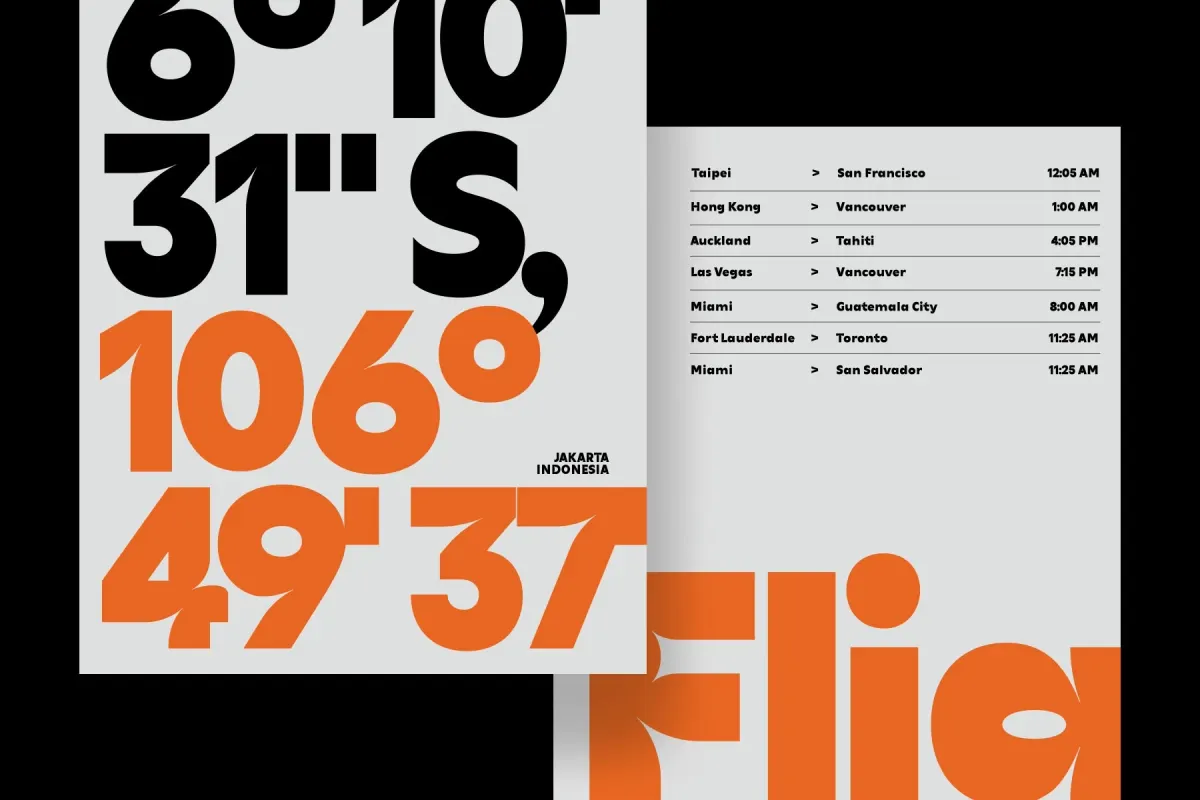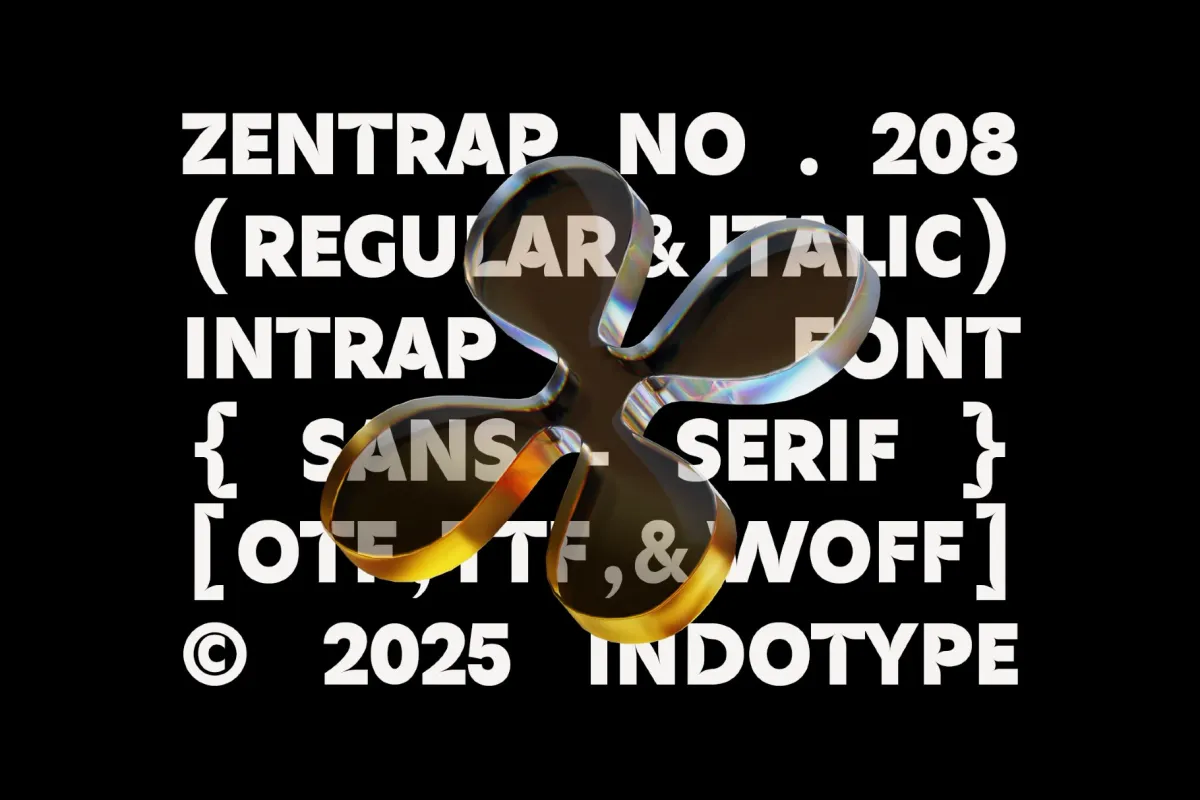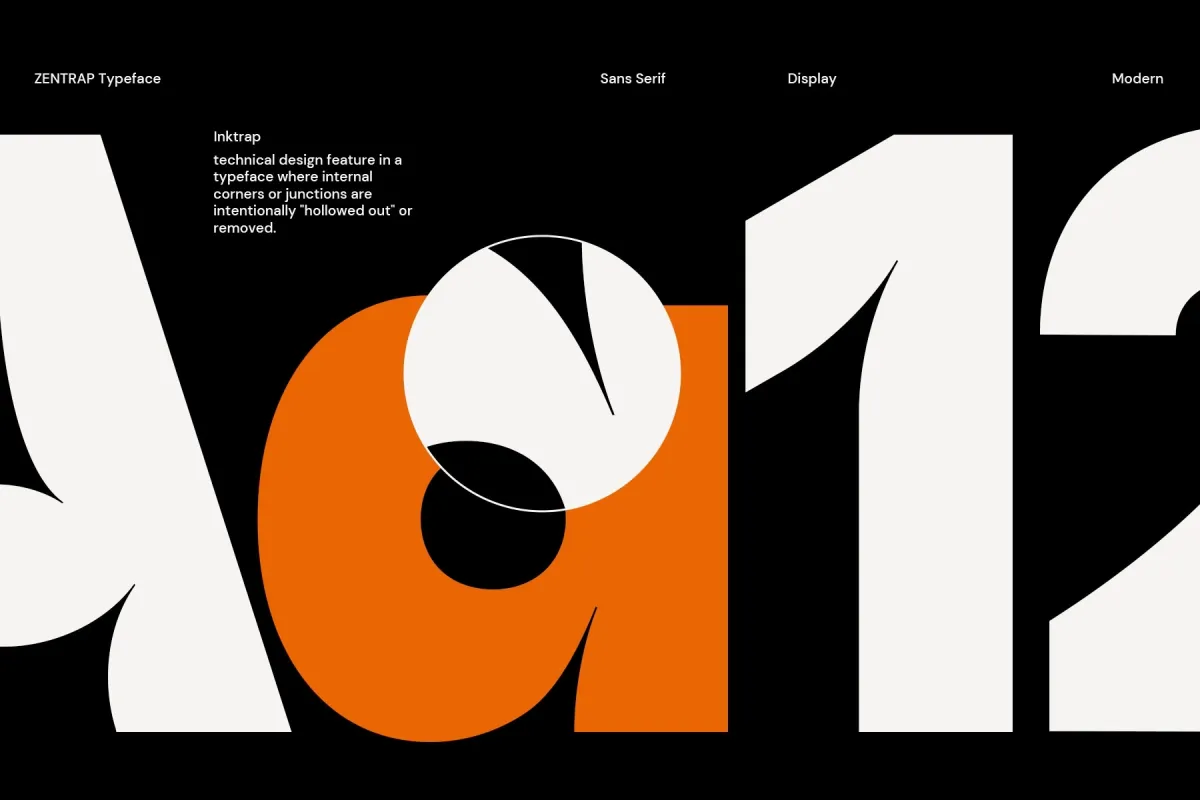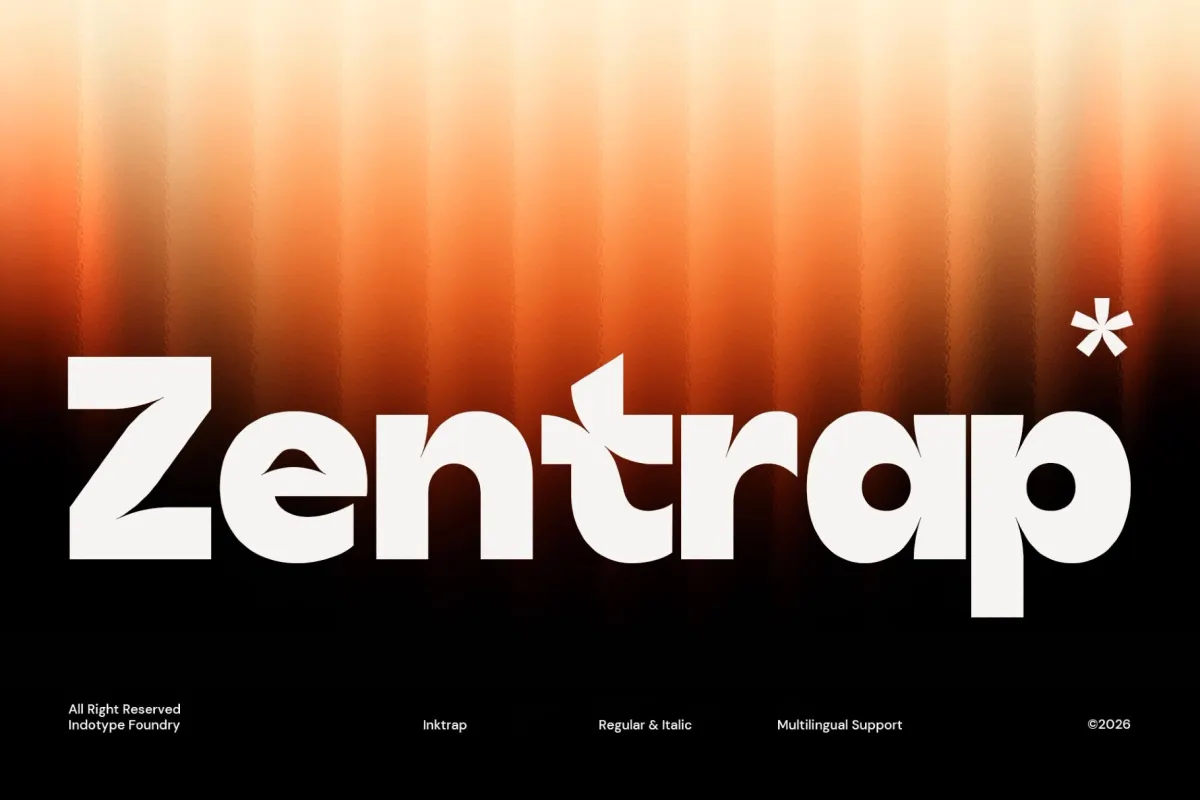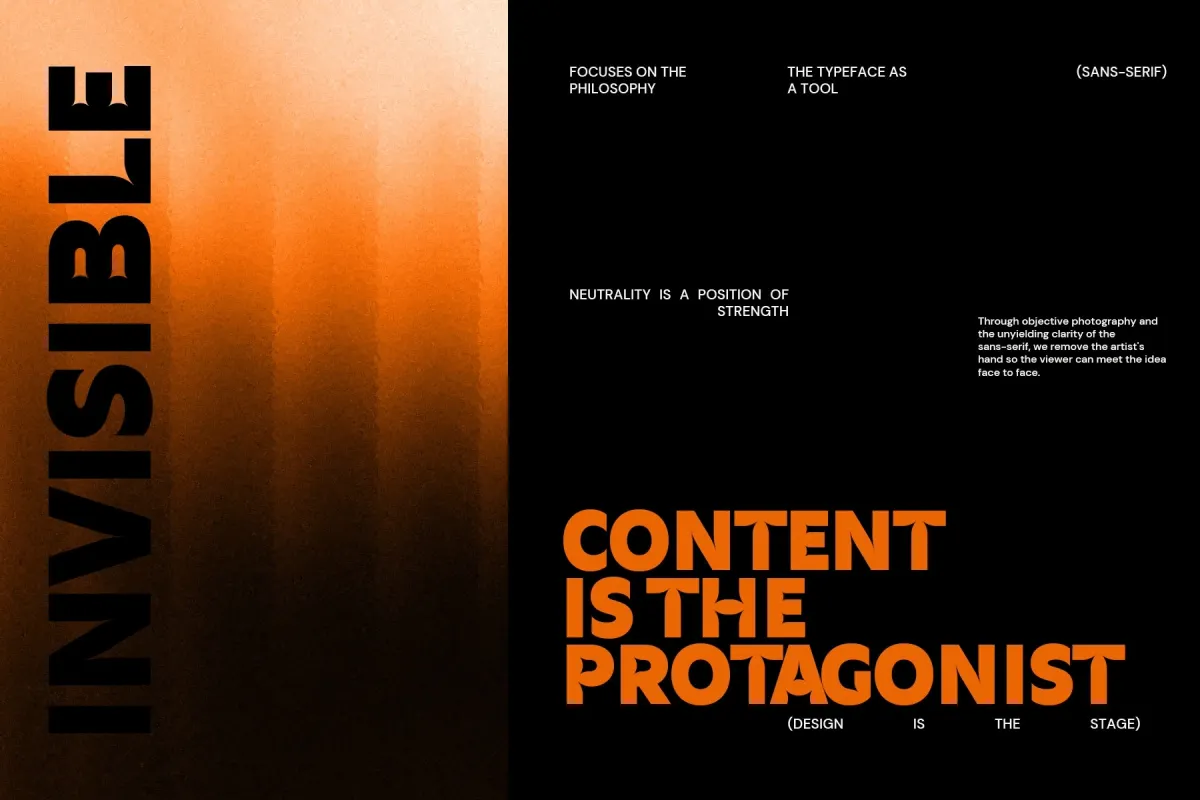
Zentrap - Modern Inktrap Sans Serif Font
Zentrap cuts sharp notches into every letter joint, turning an old print-production trick — the ink trap, originally meant to stop ink from pooling at tight corners — into the font's entire visual identity. Those angular cuts read as intentional architecture rather than a printing defect, giving the sans serif a faceted, almost cut-glass quality at display sizes. Regular and Italic share the same joint treatment, so headlines keep their edge whether upright or slanted.
Use it for tech and startup branding, editorial headlines, fashion and design magazine covers, packaging that needs a technical edge, and app or web interfaces.